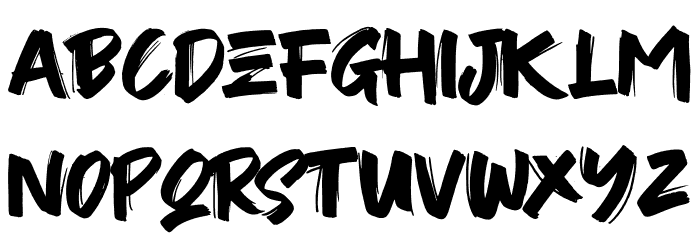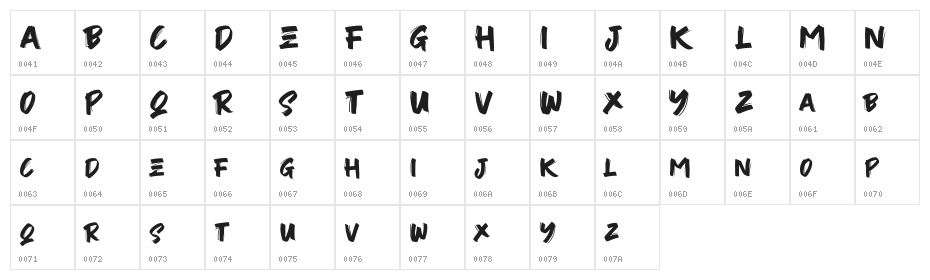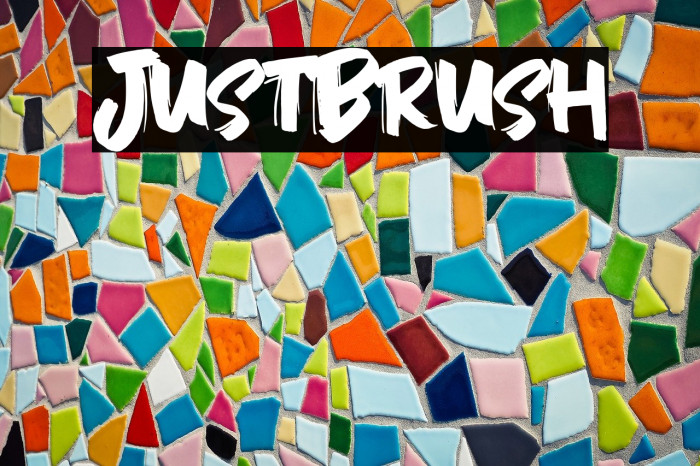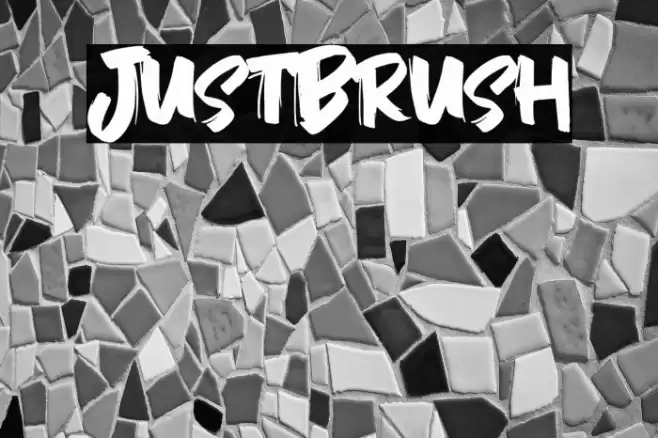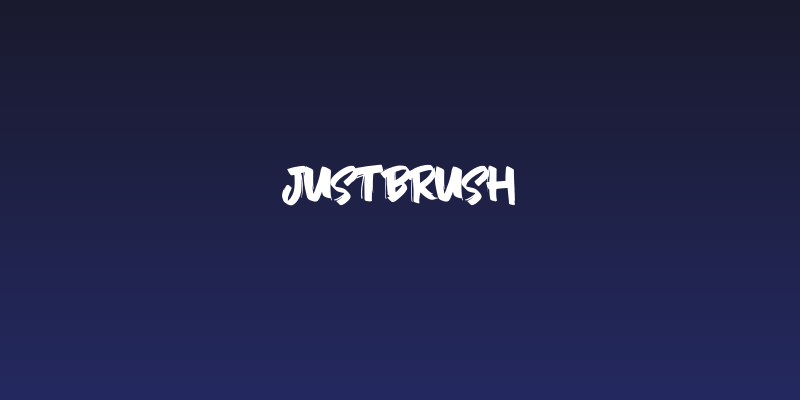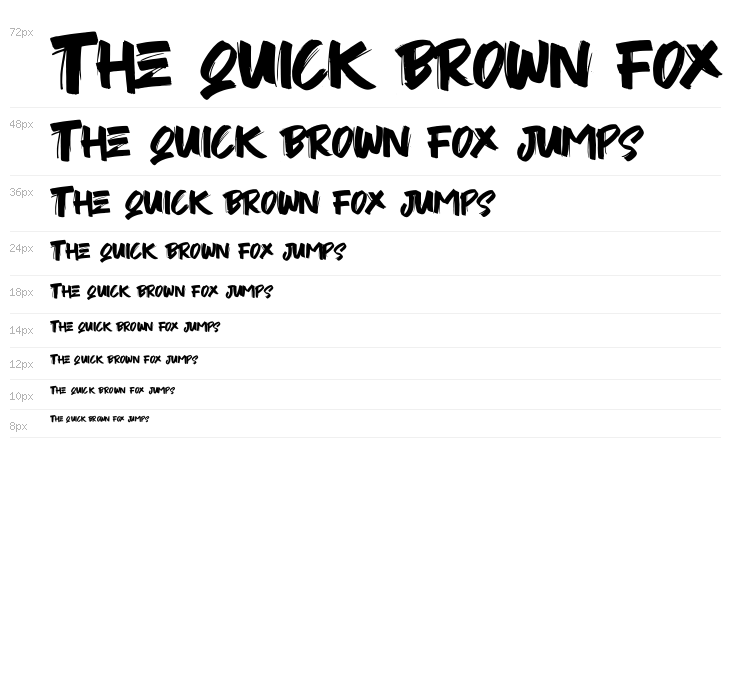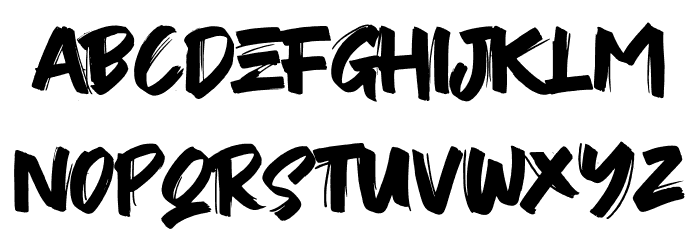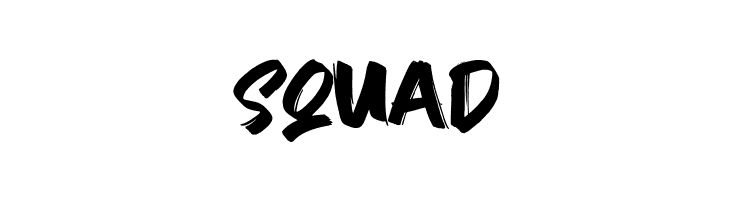
JustBrush Font
JustBrush Description
This font features a bold and dynamic brush style, characterized by its thick, expressive strokes that mimic the effect of hand-painted lettering. The letters exhibit a sense of movement and energy, with irregular edges and varying stroke widths that add a touch of spontaneity and creativity. The uppercase and lowercase letters maintain a consistent style, while the numbers and special characters seamlessly integrate into the overall design. This font's unique aesthetic makes it ideal for projects that require a personal and artistic touch, such as branding, posters, and creative headlines.
| Proposed Projects | Ideal for branding, posters, creative headlines, and artistic projects. |